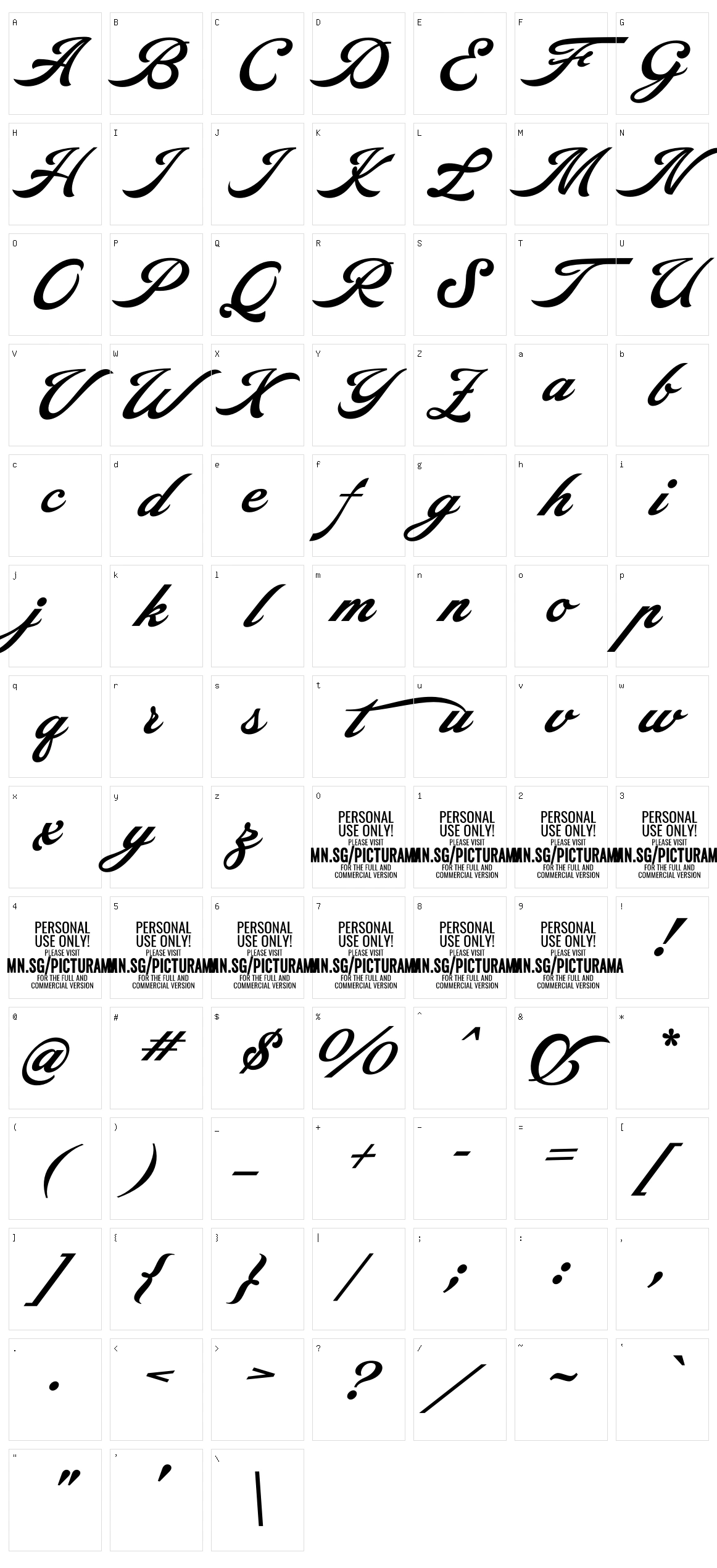
Picturama Founder is a beautiful script font that elegantly bridges the gap between time-honored formality and contemporary innovation.
Every curve and connection in this formal calligraphy type speaks of finesse, flowing with an unmatched grace reminiscent of vintage labels or classic vinyl covers.
Yet, there's a modern twist that sets it apart: its bold stance and innovative touches redefine what we expect from formal script. Unique in its character, this typeface is a symphony of the classic and the contemporary. With a range of alternates at its disposal, it offers a versatility that makes it perfect for logotype design, be it for a high-end brand or a soulful country artist.
Crafted meticulously by Mans Greback, Picturama Founder is an embodiment of passion. Greback has created a typeface that doesn't just communicate, but resonates.